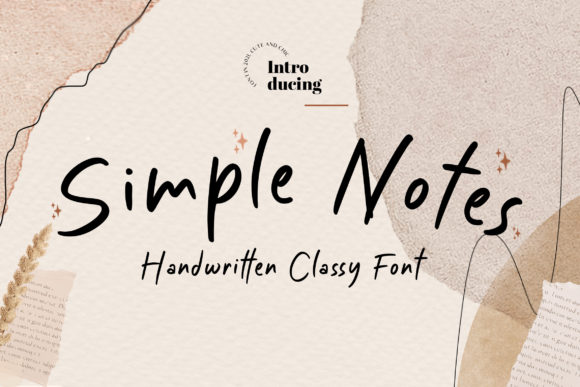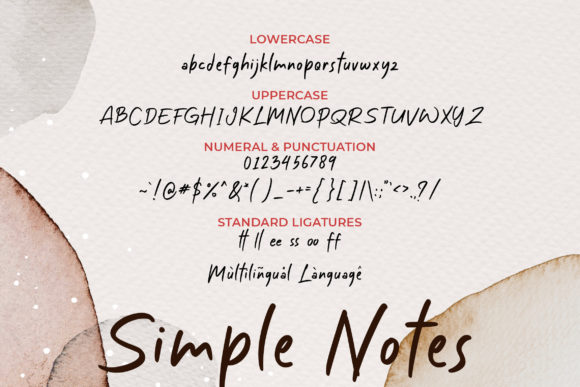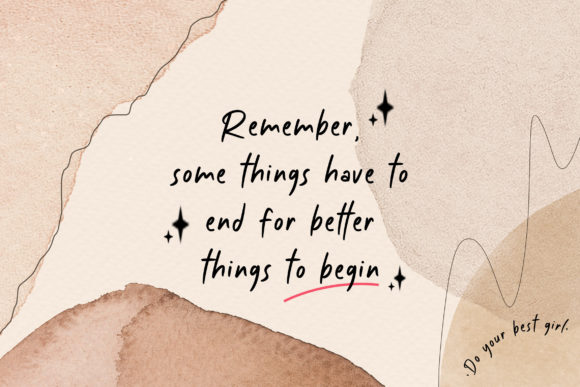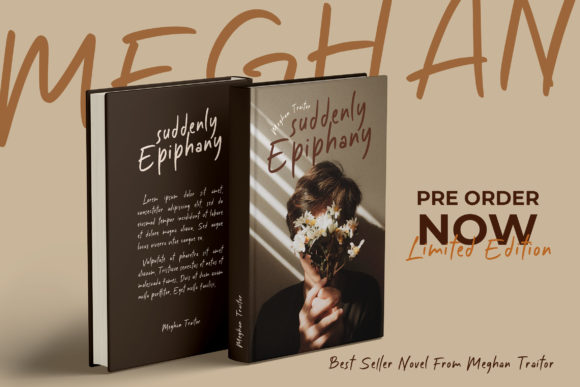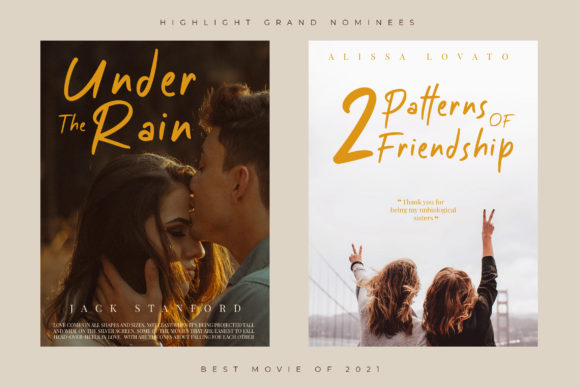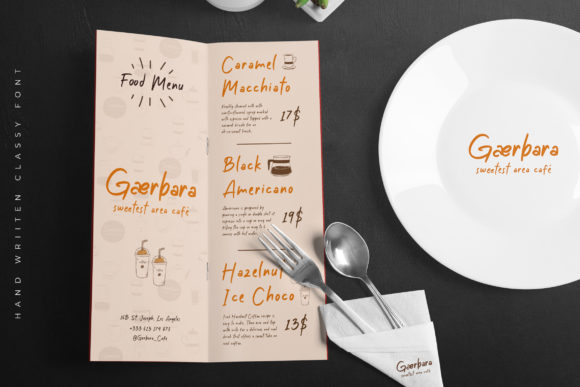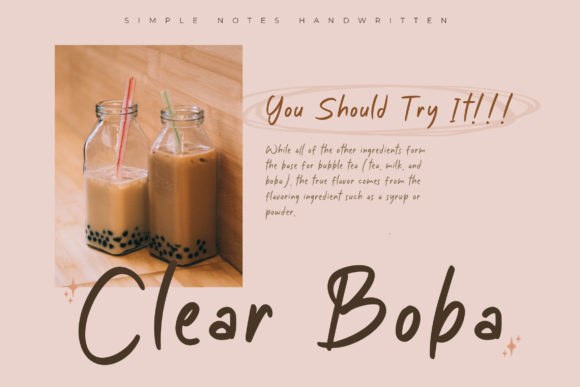
Simple Notes Font
About Simple Notes Font
Simple Notes is a thin, delicate, and natural script font that brings an authentic and personal touch to your designs. With its organic and flowing letterforms, this font is perfect for creating chalkboard quotes, teaching materials, and other designs that require a natural and handcrafted feel.
When it comes to chalkboard quotes, Simple Notes shines with its thin and delicate strokes. The font captures the essence of hand-lettering, making your quotes feel genuine and expressive. Whether you’re creating motivational quotes, inspirational messages, or decorative elements, Simple Notes adds a touch of elegance and authenticity to your chalkboard designs.
For teaching materials, Simple Notes provides a warm and inviting style. The natural and handwritten look of the font creates a friendly and approachable atmosphere, making it suitable for educational resources, worksheets, flashcards, and more. Its thin letterforms ensure readability while maintaining a personal and realistic feel.
The authentic look and feel of Simple Notes make it a versatile choice for various other design projects as well. It can be used for creating greeting cards, invitations, journal entries, blog headers, and any other designs where a natural and delicate script font is desired. Its simplicity and elegance make it suitable for both casual and formal settings.
In summary, Simple Notes is a thin, delicate, and natural script font that adds an authentic and personal touch to your designs. Whether you’re creating chalkboard quotes, teaching materials, or other projects that require a genuine and handcrafted feel, Simple Notes brings a warm and inviting vibe. Embrace its authenticity and let it enhance the personal and realistic feel of your designs.